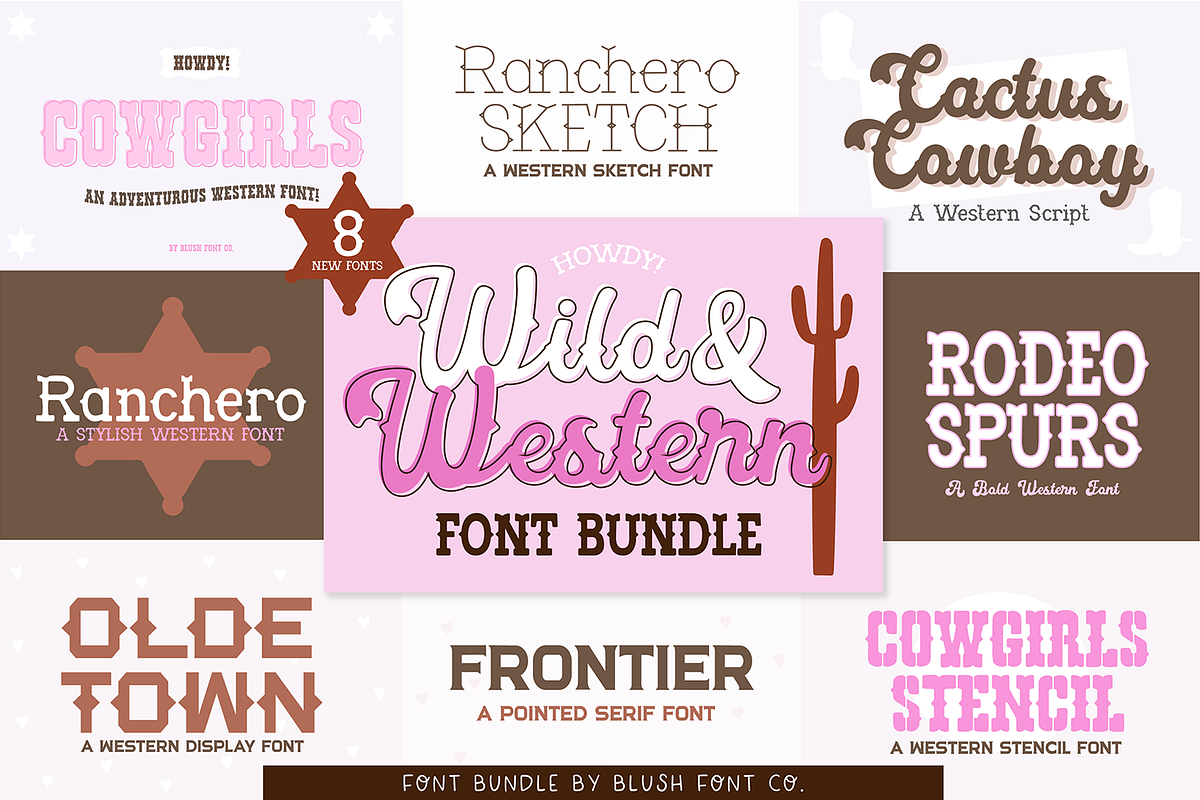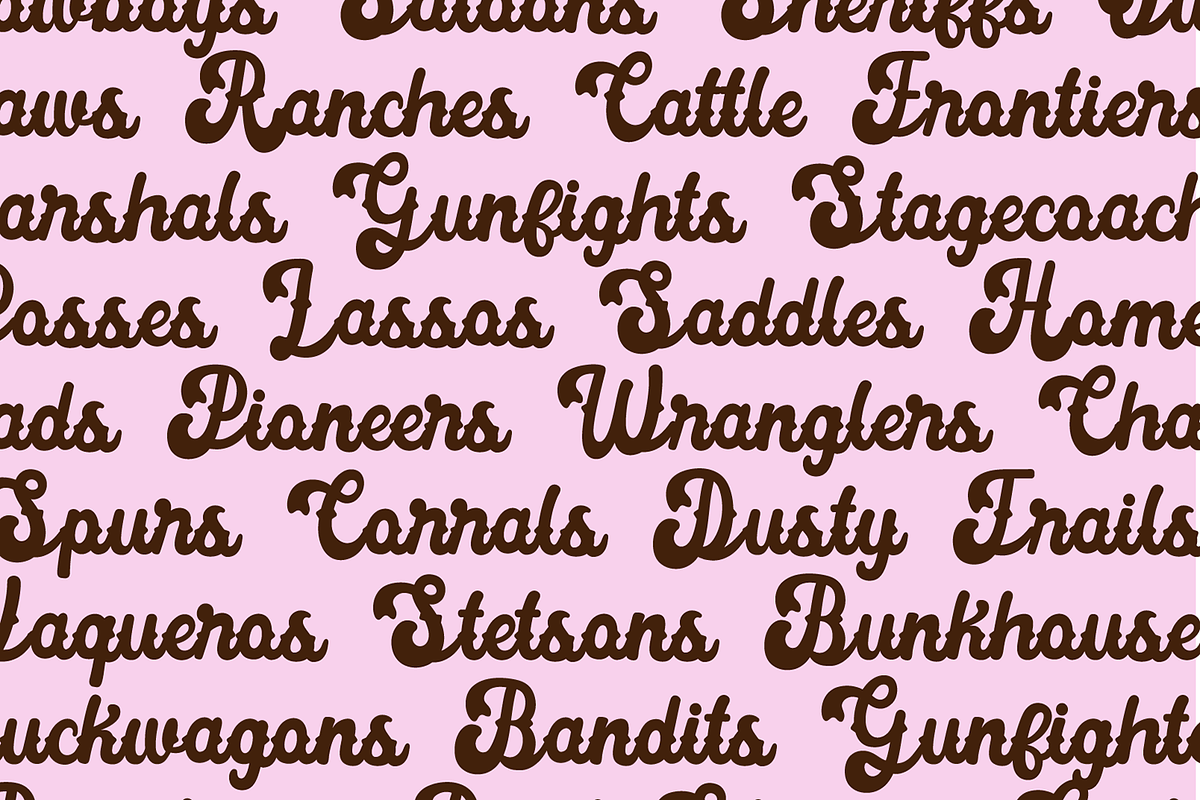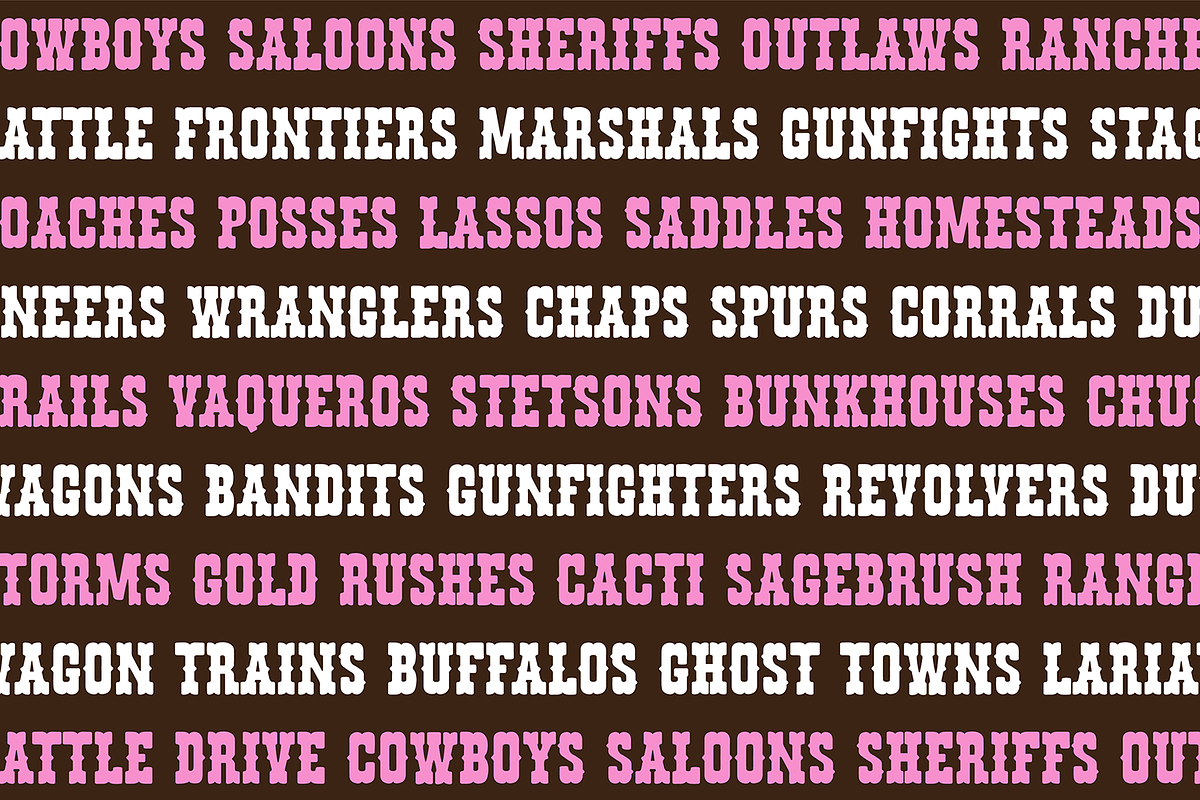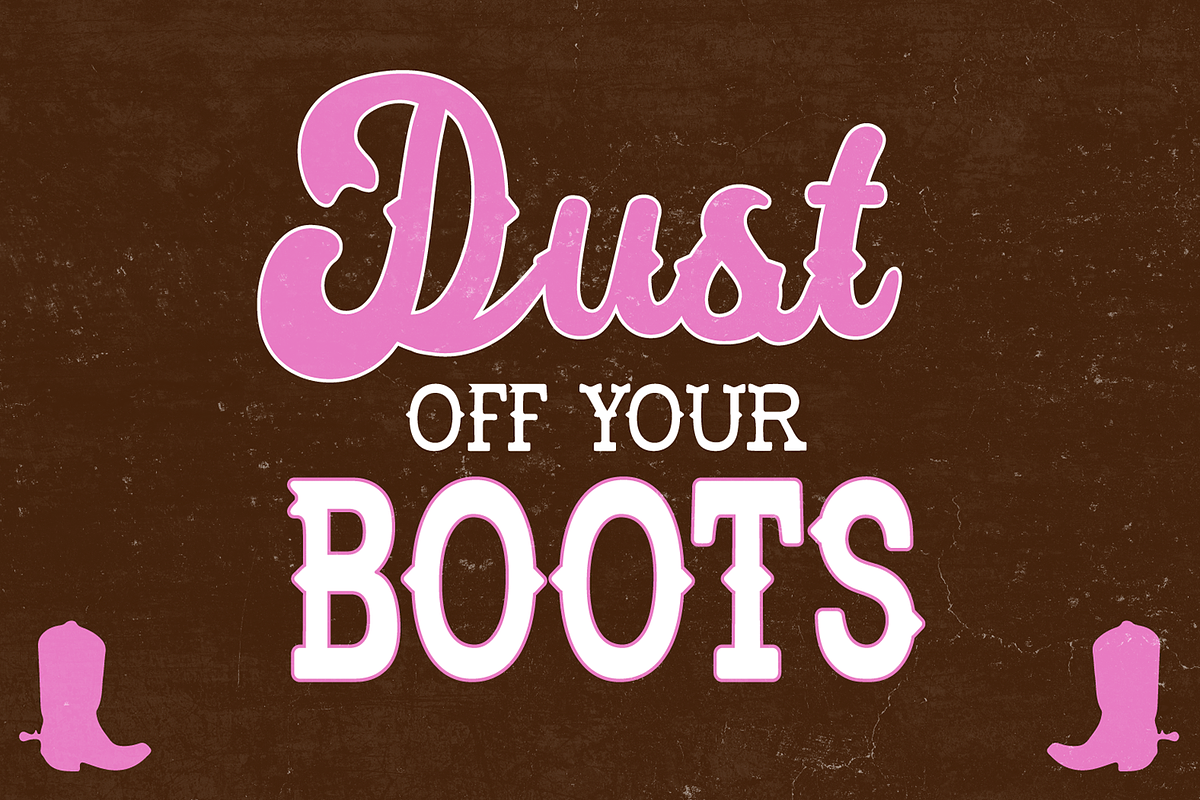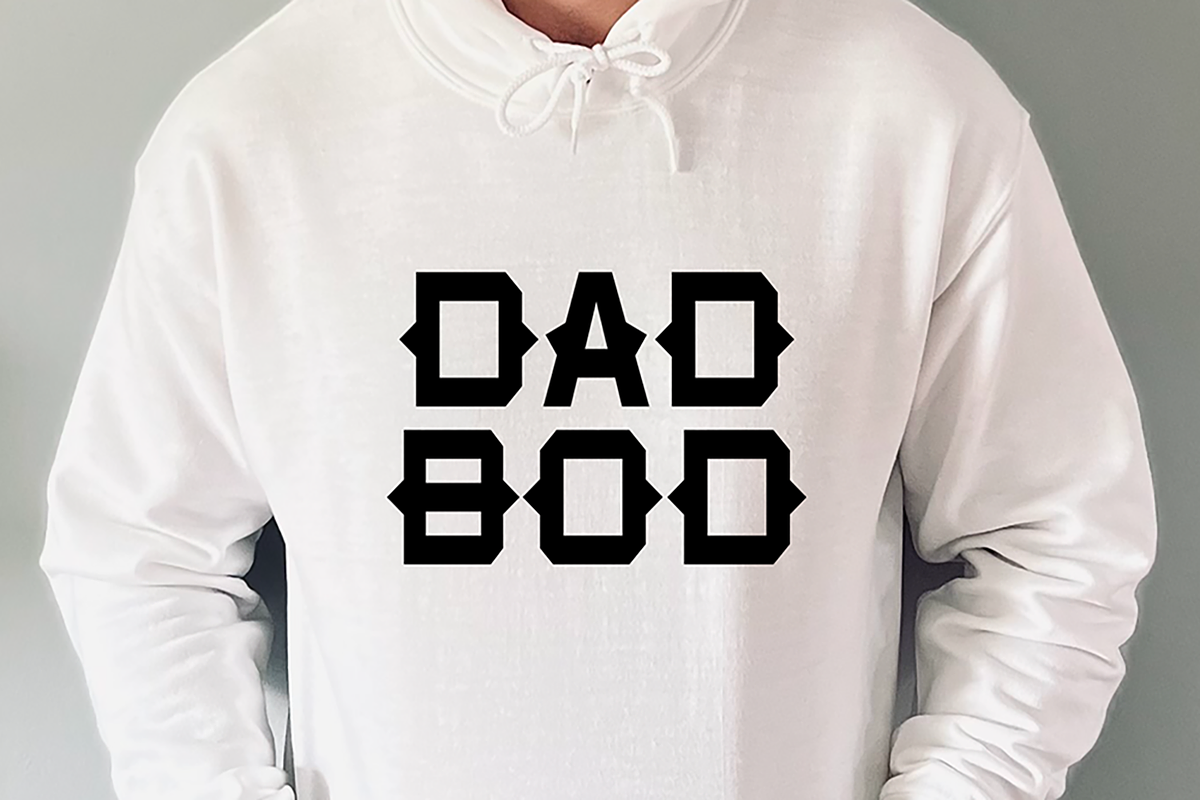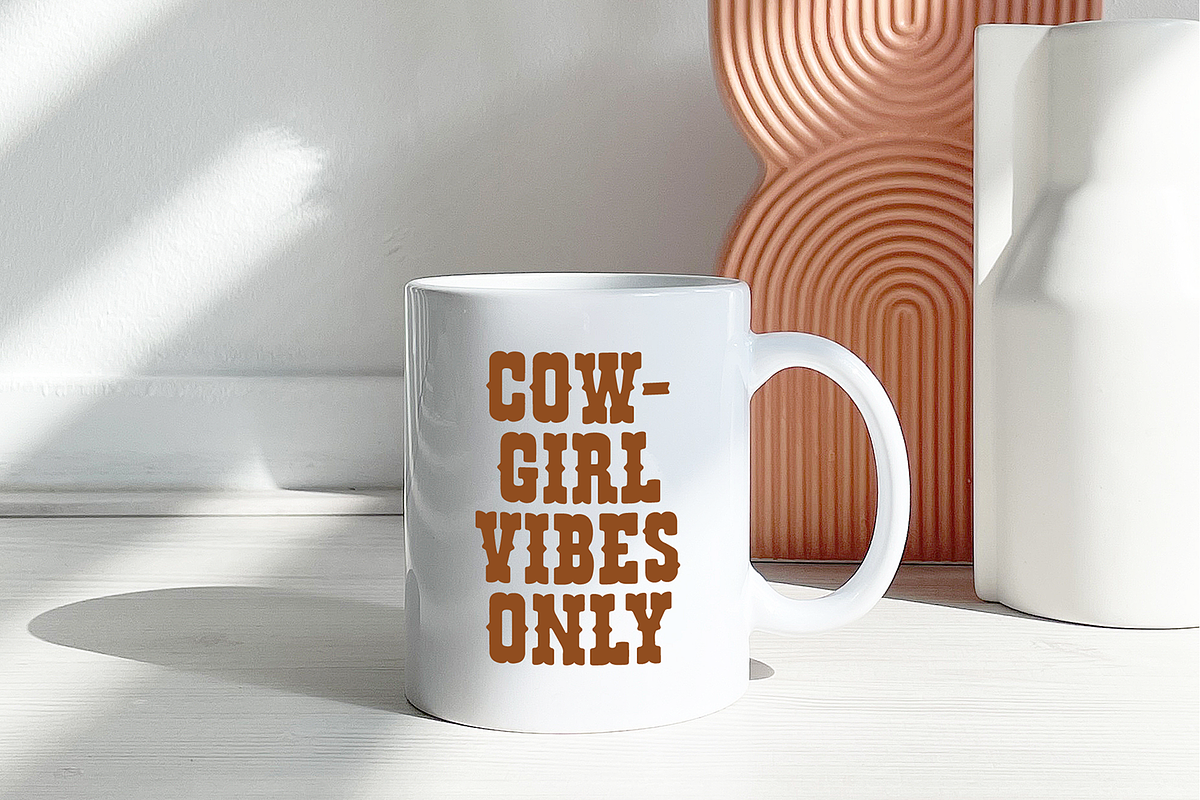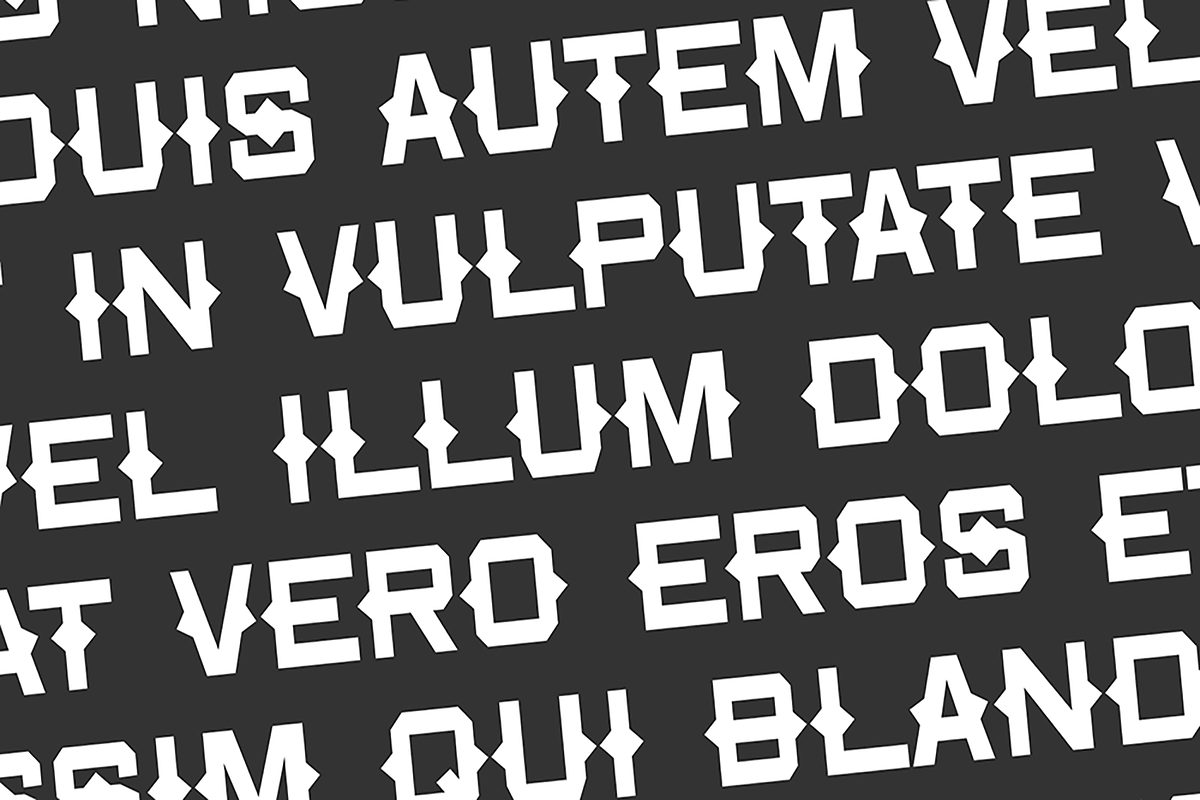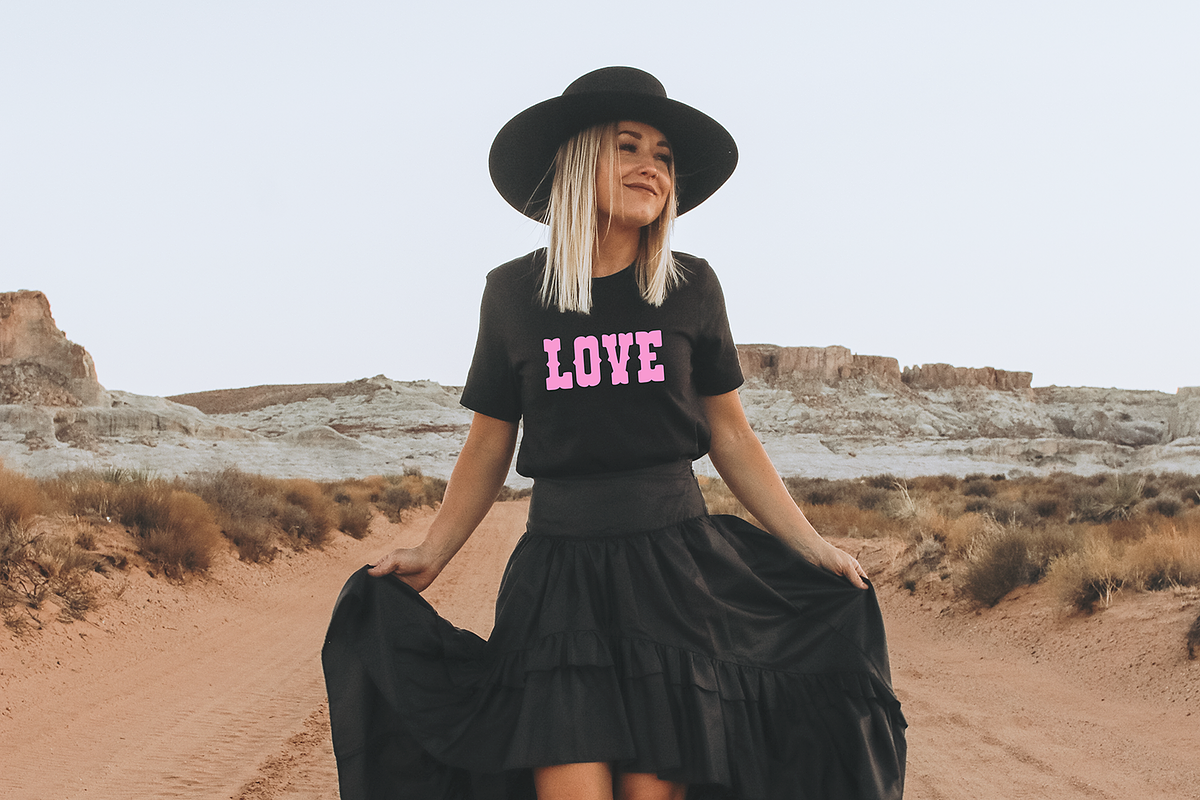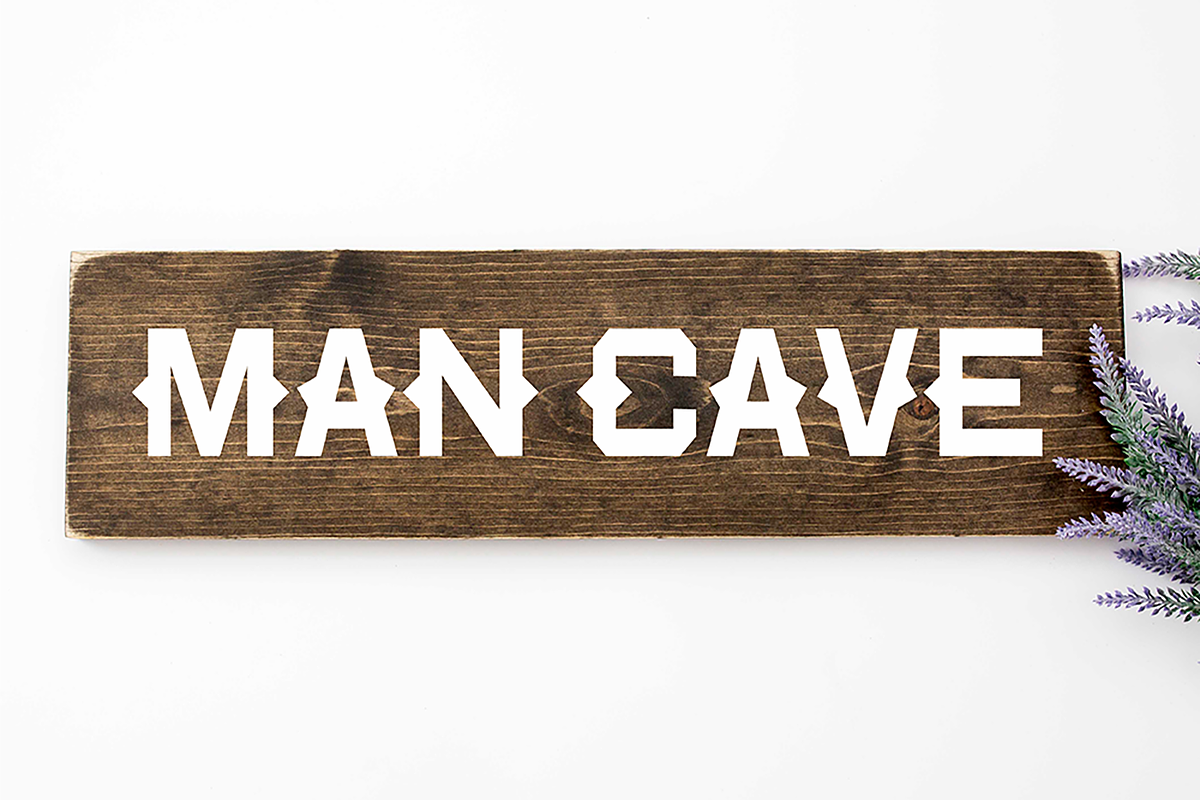
WILD AND WESTERN Font Bundle
WILD AND WESTERN FONT BUNDLE VOL. 1
8 NEW trendy western fonts by Blush Font Co.
Fonts included:
RODEO SPURS
RANCHERO
CACTUS COWBOY
COWGIRLS
COWGIRLS STENCIL
RANCHERO SKETCH
OLDE TOWN
FRONTIER